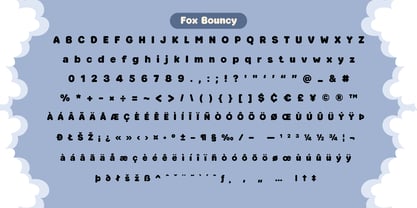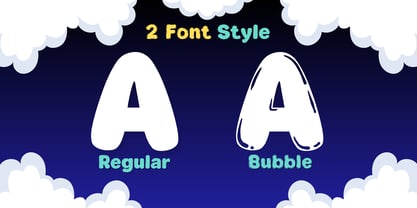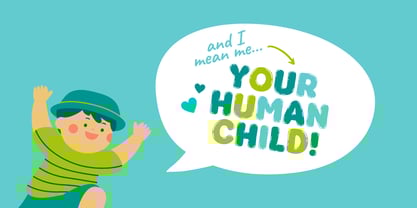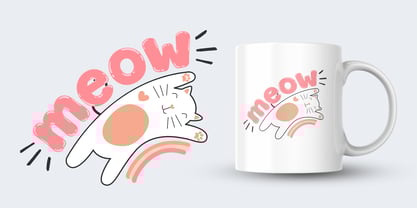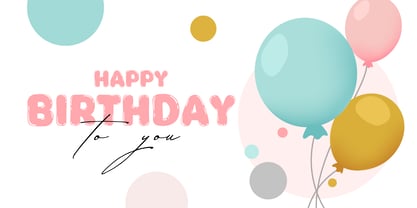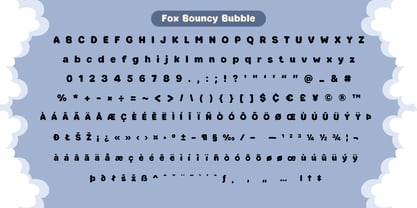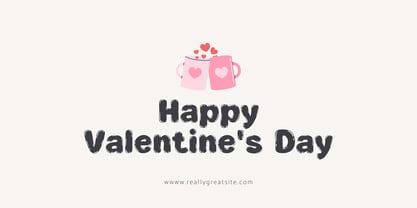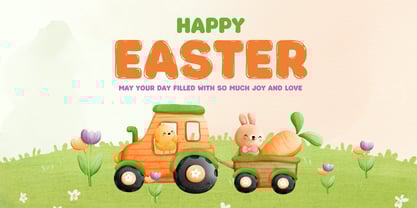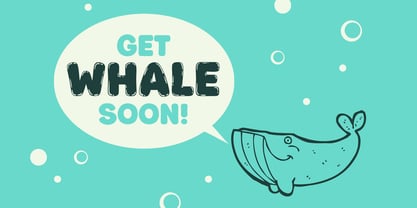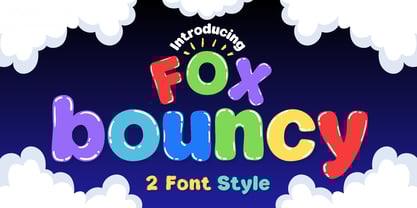
Fox Bouncy
The Fox Bouncy Font Family was designed by Rattana Rattanawan and published by Fox7. Fox Bouncy contains 2 styles and family package options.
Fox Bouncy is a lively and energetic display font designed to bring joy and playfulness to your projects. With its bouncy and bubbly appearance, this font is perfect for adding a touch of fun and excitement to any design.
🟡 Two Unique Styles
🔹 RegularA bold, smooth, and structured style for a clean yet playful look.
🔹 BubbleA bubbly, outlined version with a soft, hand-drawn feel for extra fun and creativity.
This font is ideal for kids' designs, posters, invitations, logos, packaging, branding, and any project that needs a colorful, vibrant, and friendly touch. 🌈✨
Let Fox Bouncy bring happiness and energy to your designs! 🎉